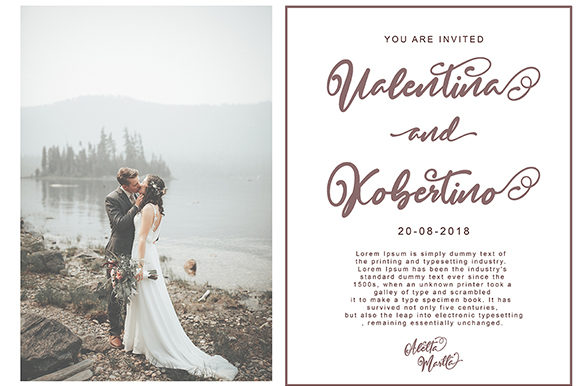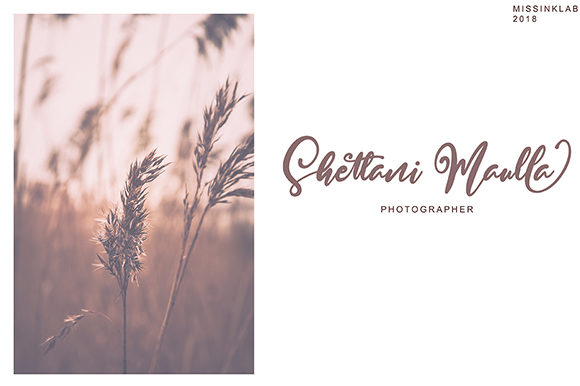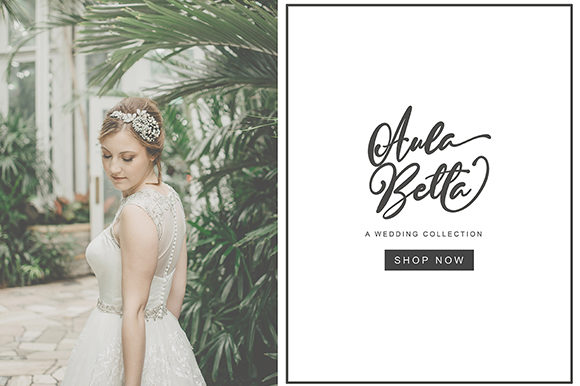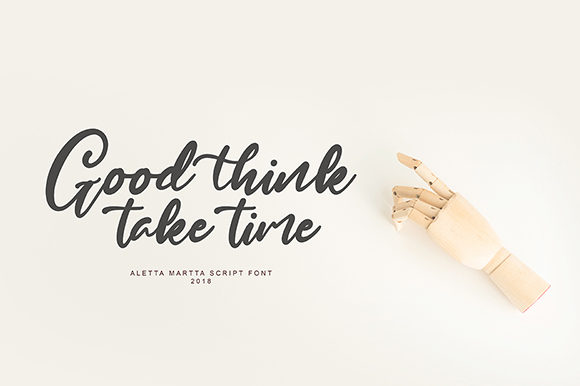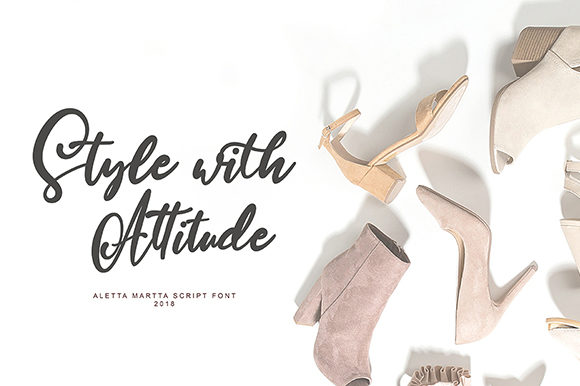
The Designer’s Delight: Aletta Martta Font
I’ll never forget the moment I stumbled upon the Aletta Martta font while working on a wedding invitation project. I had tried countless fonts, but none seemed to capture the romantic and whimsical feel my client was looking for. That’s when I discovered Aletta Martta, and it was love at first sight! 💕
This beautiful handwritten font has a way of adding a touch of elegance and playfulness to any design project. In this article, I’ll share my experience with Aletta Martta, its features, and how to make the most of it in your designs.
- ✨ Incredible details: Aletta Martta boasts intricate strokes and beautiful swashes that add a level of sophistication to any design.
- ✅ Romantic and delicate feel: This font is perfect for projects that require a touch of whimsy and romance.
- 💫 Highly versatile: Aletta Martta can be used for a wide range of projects, from wedding invitations to branding and packaging.
While Aletta Martta is an amazing font, there are a few things to keep in mind:
- ⚠️ Limited use in body text: Due to its intricate details, Aletta Martta may not be the best choice for large blocks of body text.
- 🤔 Some characters may require manual kerning: While the font is generally well-spaced, some characters may require manual kerning to achieve optimal results.
- Experiment with OpenType features, such as swashes and stylistic alternates, to add visual interest.
Aletta Martta was designed with love and care by a talented type designer who drew inspiration from classic calligraphy and modern handwriting. The font’s creator aimed to craft a beautiful, elegant script that would add a touch of romance and whimsy to any design project.
Q: What is the best way to use Aletta Martta in a design project?
A: Aletta Martta is perfect for projects that require a touch of elegance and playfulness, such as wedding invitations, branding, and packaging.
Q: Can I use Aletta Martta for body text?
A: While Aletta Martta is a beautiful font, it may not be the best choice for large blocks of body text due to its intricate details. Consider using a simpler font for body text and reserving Aletta Martta for headings or accents.